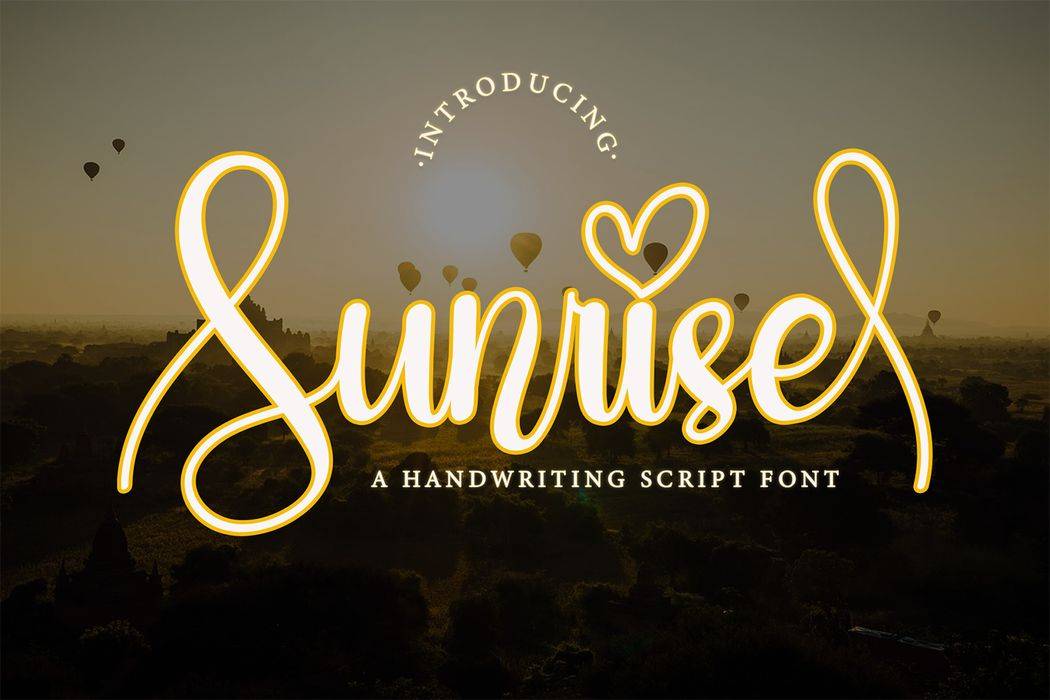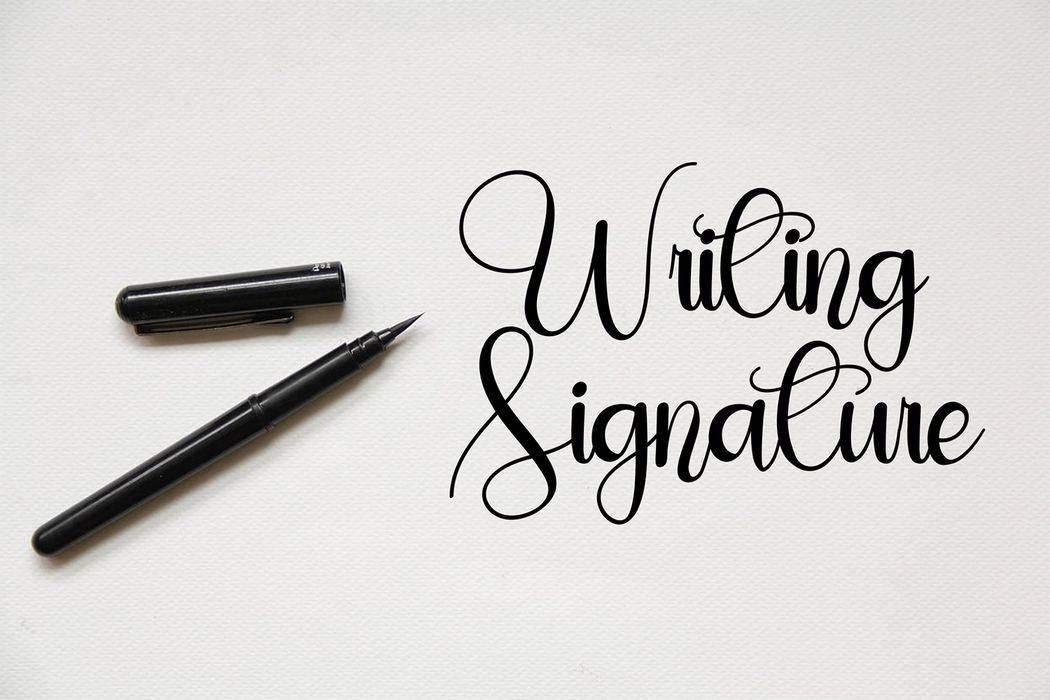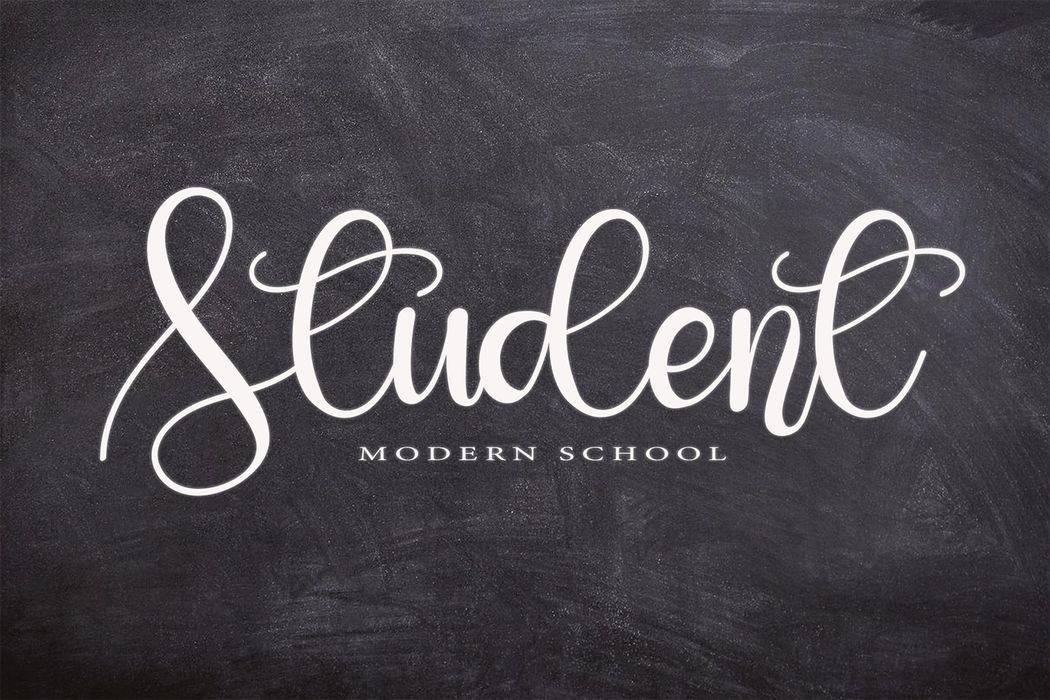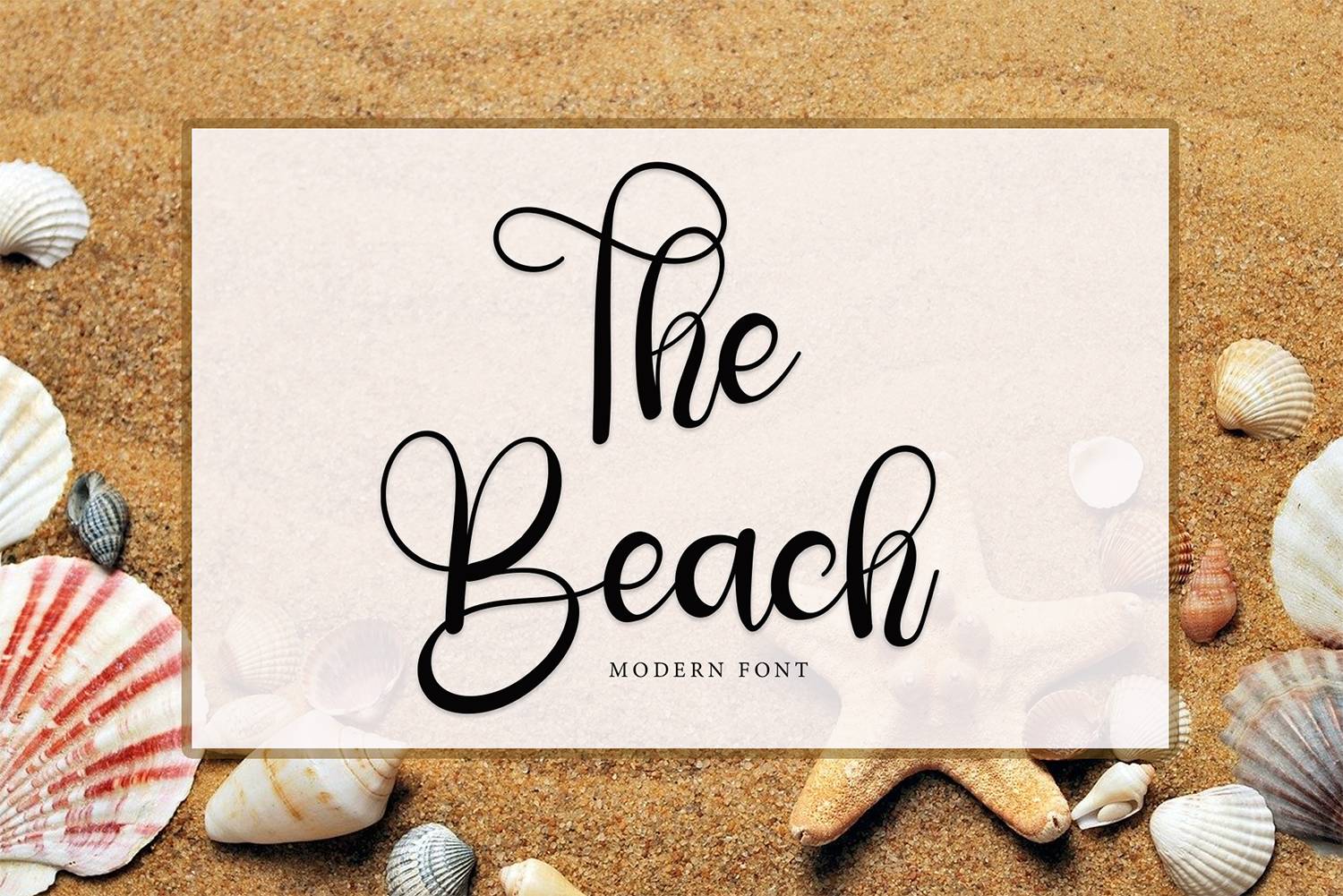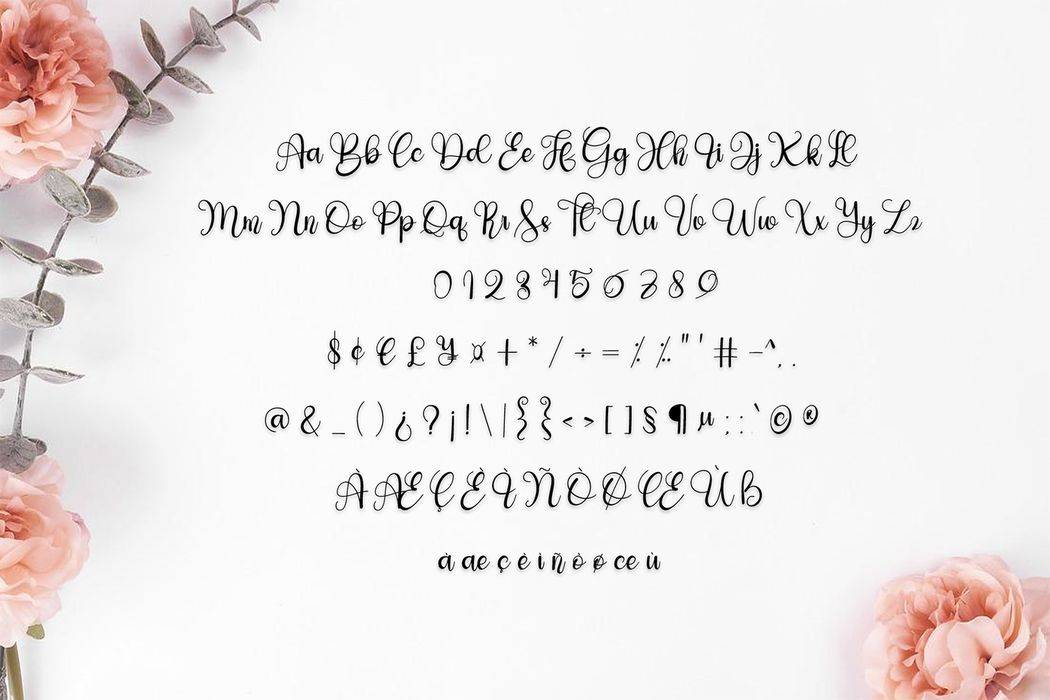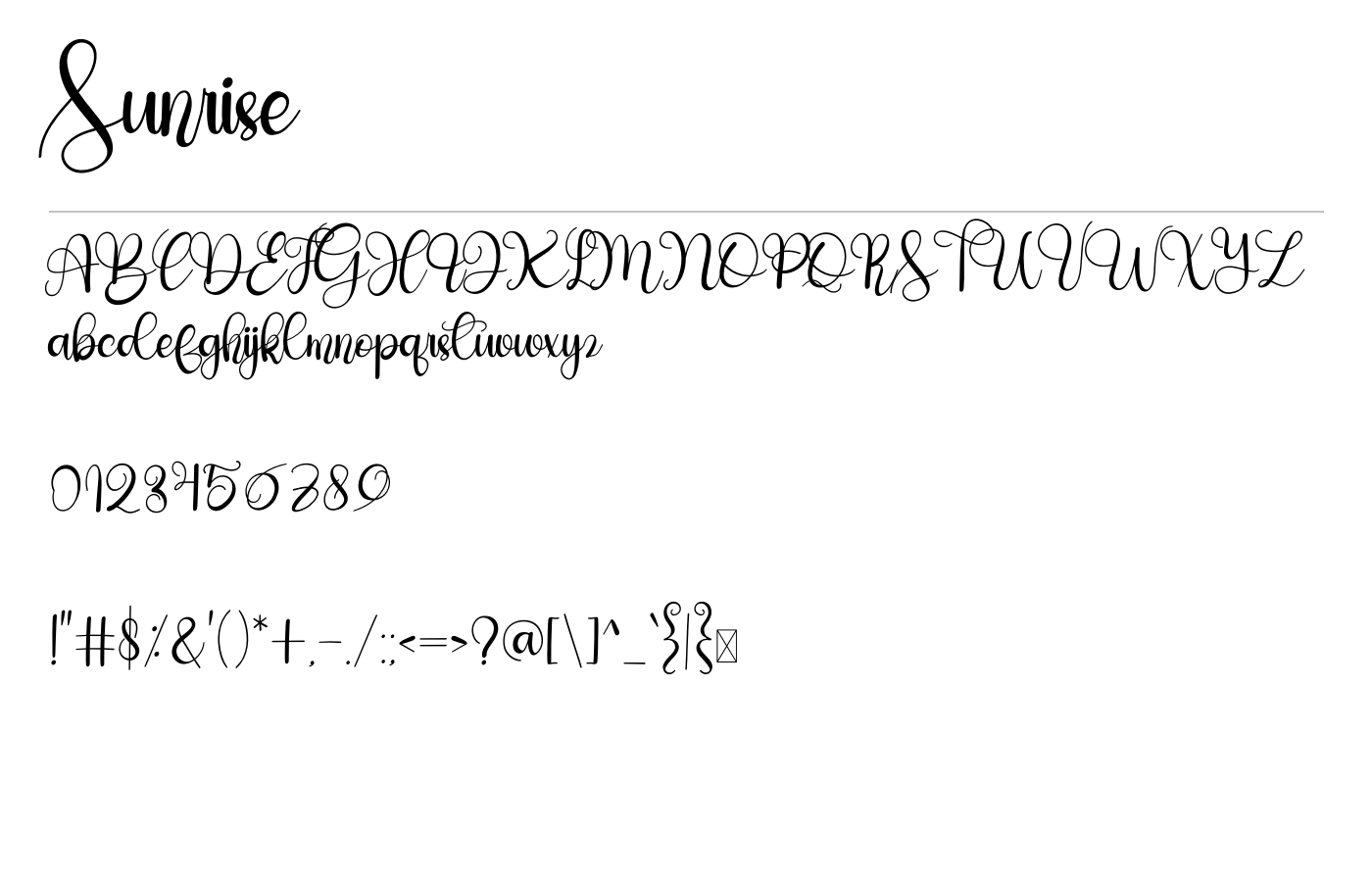
Sunrise is a delicate script font with elegant, flowing letterforms that blend graceful curves and fine strokes. Its light weight and high contrast details create a sophisticated and romantic feel, making it perfect for wedding invitations, luxury branding, and feminine design projects where a touch of refinement and charm is desired. This font works best in large display sizes, bringing an artistic and personal touch to headlines and logos.
Sunrise Font
About Sunrise Font